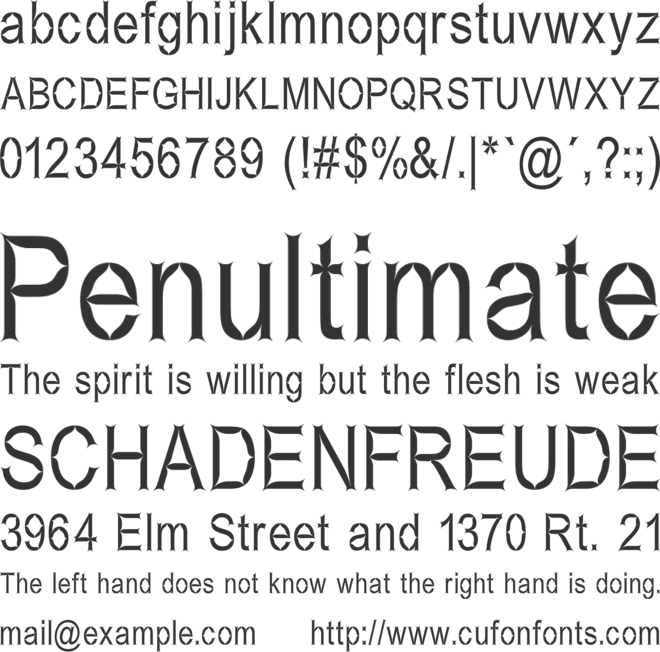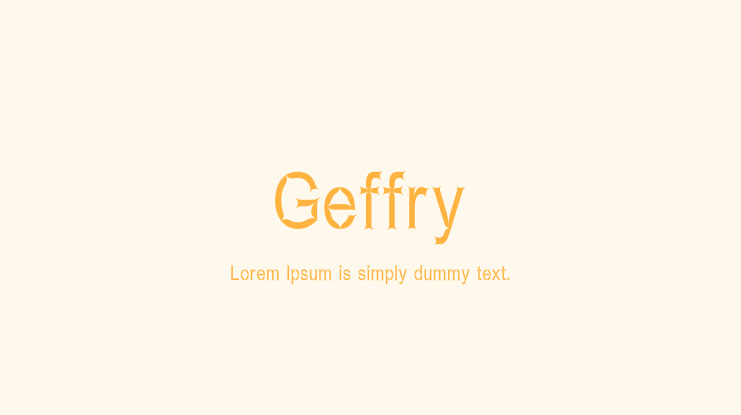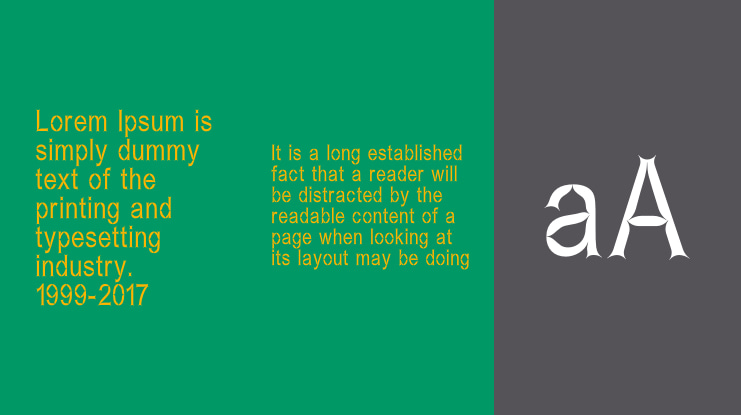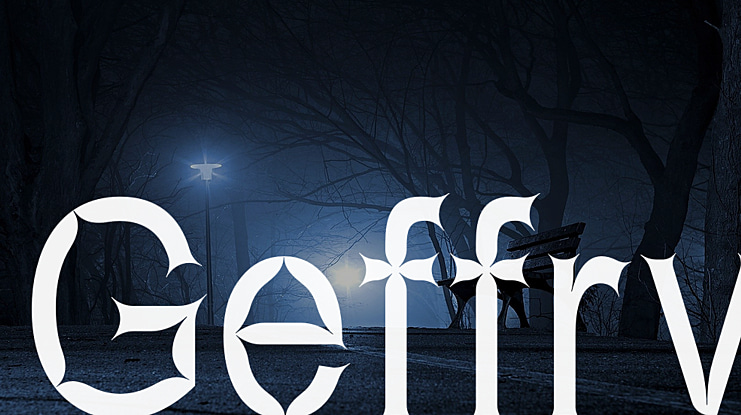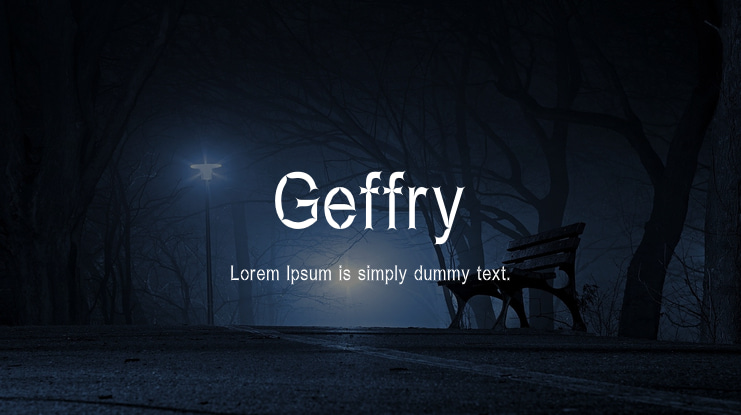
Geffry Font
Geffry is a fun, groovy, and bold retro-inspired display typeface perfect for mastheads, logos, or any creative project you can think of! Add it with confidence to your favorite designs, and notice how it makes them stand out!